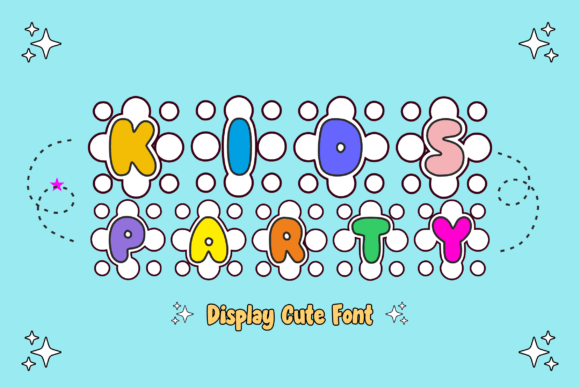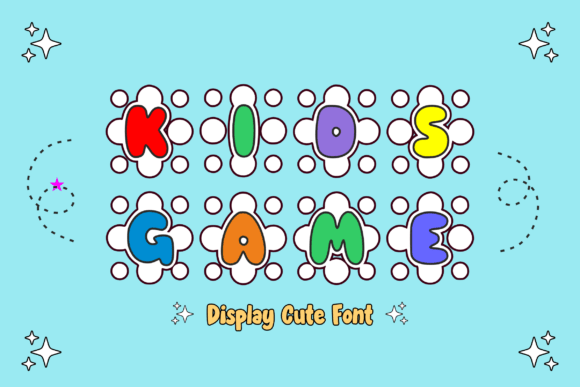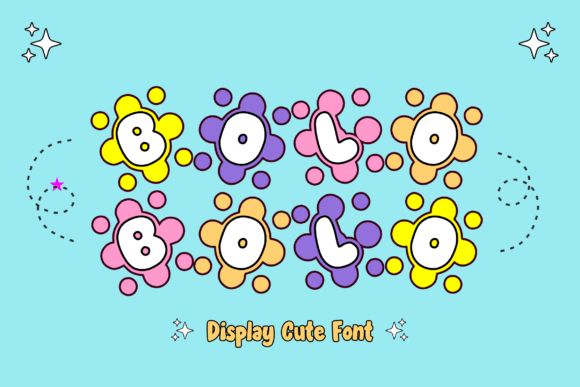
Unleash Your Creativity with Bolo Bolo Font: The Ultimate Decorative Typeface
Are you tired of using the same old fonts in your designs? Look no further! We’re excited to introduce “Bolo Bolo,” a vibrant and lively decorative font that’s sure to add a splash of personality to your projects. This delightful polka dot theme font is designed to make your designs pop, and we’re thrilled to share its features and benefits with you.
What Makes Bolo Bolo Font So Special?
Bolo Bolo is more than just a font – it’s a design element that’s packed with whimsy and fun. Each character in this typography is adorned with bouncy dots, making it easy to spot letters and adding a playful touch to your designs. The polka dot theme is both classic and trendy, making it perfect for a wide range of projects, from sublimation designs to animations and comic titles.
Perfect for Sublimation Designs
If you’re a designer or crafter who loves working with sublimation designs, Bolo Bolo font is a game-changer. This font is specifically designed to add a unique style to t-shirts, mugs, tote bags, and other products. The polka dots add a fun and playful touch that will make your designs stand out from the crowd. Whether you’re creating custom apparel for a business, event, or personal use, Bolo Bolo font is the perfect choice.
Bringing Energy to Animations and Comic Titles
Bolo Bolo font is not just limited to sublimation designs. It’s also perfect for animations and comic titles that require a dose of energy and playfulness. The bouncy dots and whimsical design make it an excellent choice for adding visual interest to your animations and comics. Whether you’re creating a children’s book, a cartoon, or a graphic novel, Bolo Bolo font is sure to engage your audience.
Why Choose Bolo Bolo Font?
So, why should you choose Bolo Bolo font for your next project? Here are just a few reasons:
- Unique and Exclusive: Bolo Bolo font is a one-of-a-kind design that’s sure to make your projects stand out.
- Playful and Whimsical: The polka dot theme adds a playful and whimsical touch to your designs.
- Easy to Read: The bouncy dots make it easy to spot letters, making it a great choice for designs that require clear typography.
- Versatile: Bolo Bolo font can be used for a wide range of projects, from sublimation designs to animations and comic titles.
Get Creative with Bolo Bolo Font